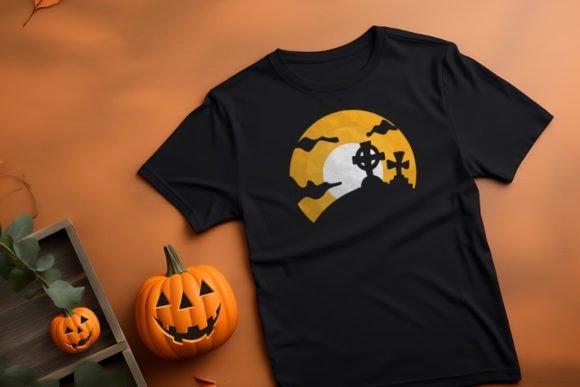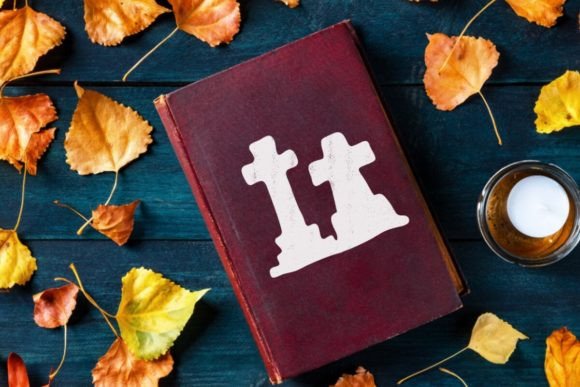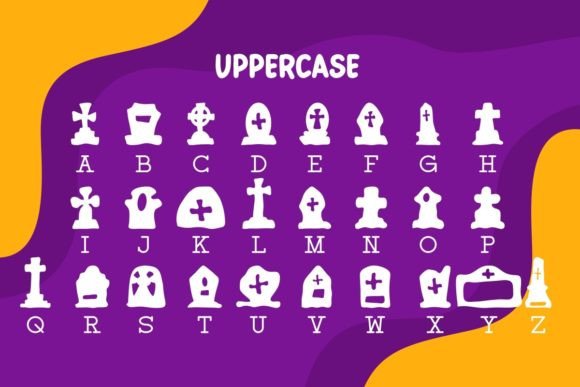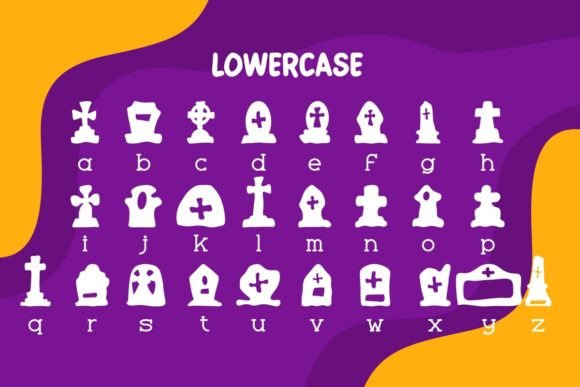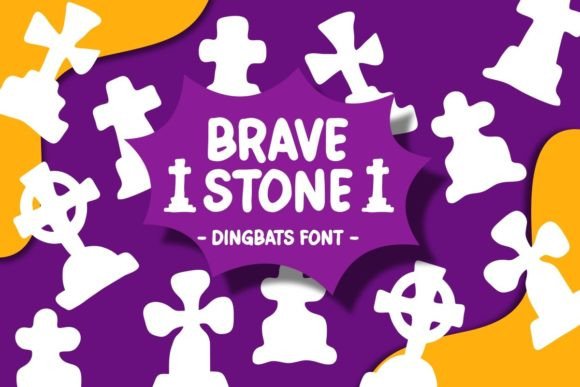
Unleash the Spookiness: A Deep Dive into the Brave Stone Font
As a designer, I’ve had my fair share of midnight oil burns, scrambling to find the perfect font for a project. But one Halloween project still haunts me (pun intended!). A client asked for a graveyard-themed design, and I was on a mission to find a font that would make their tombstones look eerily authentic. That’s when I stumbled upon the Brave Stone Font – a game-changer for any spooky design endeavor!
First Impressions: What I Love About Brave Stone
The Brave Stone Font is more than just a typographic tool; it’s an experience. Here are a few things that make it stand out:
- ✨ Unique Dingbats Design: Each character in this font is a hauntingly beautiful tombstone symbol, perfect for adding an extra layer of spookiness to your Halloween projects.
- ✅ Highly Versatile: Whether you’re working on invitations, posters, or social media graphics, Brave Stone can add that special graveyard charm.
- 🔍 Intricate Details: The font’s design is rich with intricate details, making it perfect for projects that require a closer look.
The Not-So-Perfect: A Few Quirks
No font is perfect, and Brave Stone is no exception. Here are a few things to keep in mind:
- 🤔 Glyph Limitations: While the font offers a wide range of tombstone symbols, it might not cover every possible character or symbol you need. You’ll have to get creative with substitutions or pair it with another font.
- ⚠️ Legibility at Small Sizes: Like many decorative fonts, Brave Stone can lose legibility at very small sizes. It’s best used at larger sizes where its details can shine.
The Story Behind Brave Stone
Brave Stone was inspired by the old, mysterious tombstones found in centuries-old graveyards. The designer aimed to capture the essence of these stone markers, translating their weathered, eerie beauty into a typographic form. The result is a font that’s not just a collection of characters but a gateway to creating hauntingly beautiful designs.
Brave Stone Font is more than just a font – it’s a design experience that can elevate your Halloween projects to a new level of spookiness and charm. With its unique dingbats design, versatility, and rich details, it’s an excellent addition to any designer’s toolkit. So, don’t be afraid to get creative and let Brave Stone lead you into a world of eerie elegance and haunting beauty.